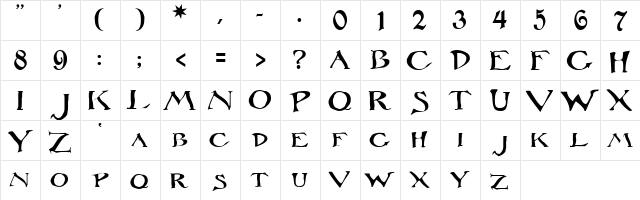
Rackham Regular
Design Context for Rackham Typeface
Rackham is a composed and adaptable typeface that performs quietly and consistently across a wide range of design contexts.
Pro Tip: Pair Rackham with a font of contrasting weight or personality to build a more expressive typographic hierarchy.